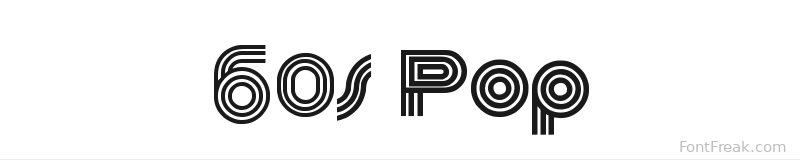
60s Pop
The 60s Pop font by Galdino Otten Fonts is a distinctive display typeface that captures the vibrant essence of the 1960s. With its bold, rounded letterforms, this font embodies a playful and energetic spirit, making it an ideal choice for projects that require a retro flair. The visual characteristics of the 60s Pop font feature a medium stroke weight and a balanced contrast, which adds a sense of dynamism while maintaining readability. The letters exhibit generous spacing, allowing for a clean and airy appearance that enhances its overall impact.
This font is particularly well-suited for a variety of creative applications. Graphic designers can leverage its retro aesthetic for designing eye-catching movie posters, where the playful vibe can evoke nostalgia. Additionally, it works wonderfully for event flyers, especially those promoting music festivals or themed parties that celebrate the culture of the 60s. Small business owners can utilize the 60s Pop font for restaurant menus or signage, giving their establishments a unique and inviting character. Content creators will find it an excellent choice for social media graphics and blog headers that aim to capture attention and engage audiences.
The target audience for the 60s Pop font includes graphic designers, small business owners, and content creators who are looking to make a statement with their designs. By incorporating this font into their projects, they can bring a touch of vintage charm that resonates with a wide range of viewers. The 60s Pop font free download is a fantastic opportunity for creatives to enhance their work with a lively, retro typeface that stands out in any context. Its unique design not only celebrates a pivotal era in design history but also offers versatility and appeal for modern-day applications.